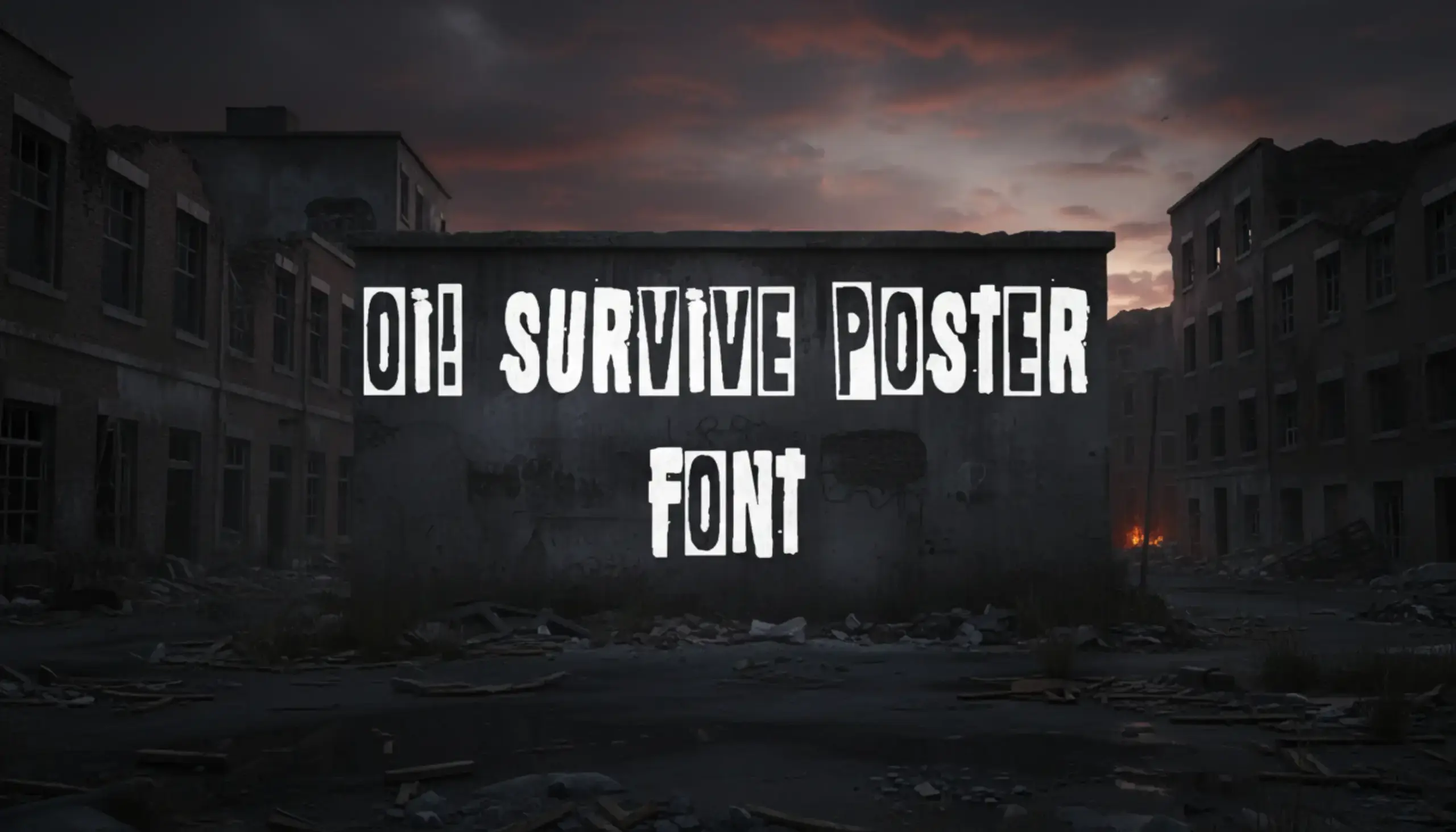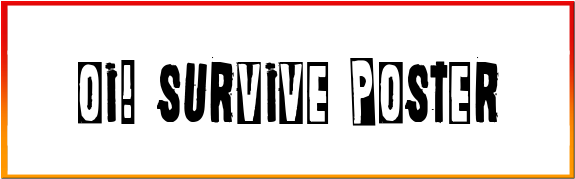
Oi! Survive Poster Font
Oi! Survive Poster is a fancy font created by Woodcutter Manero. Bold and full of character, it's built to stand out rather than blend in. You can download it for free and test it with your own words in the preview above.
With complete upper and lowercase letters and all ten digits, Oi! Survive Poster is ready for real wording, not just a single headline. Everyday marks like &, !, ? and @ are there too. Thanks to its accented letters, it also works for Spanish, French, German, Portuguese and Italian, not just English.
Designers usually reach for fonts like Oi! Survive Poster when they're making posters, logos and eye-catching headlines. Use it for one standout word or headline and let simpler fonts handle the rest.